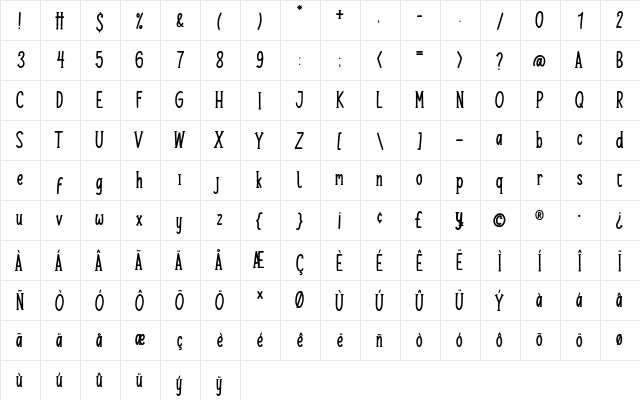
Honeybae Regular
Design Context for Honeybae Typeface
Honeybae offers clean, dependable letterforms without strong stylistic allegiance, making it a practical choice for designers who need flexibility.
Pro Tip: Use Honeybae in both headline and body roles to test its range before committing to a single application.